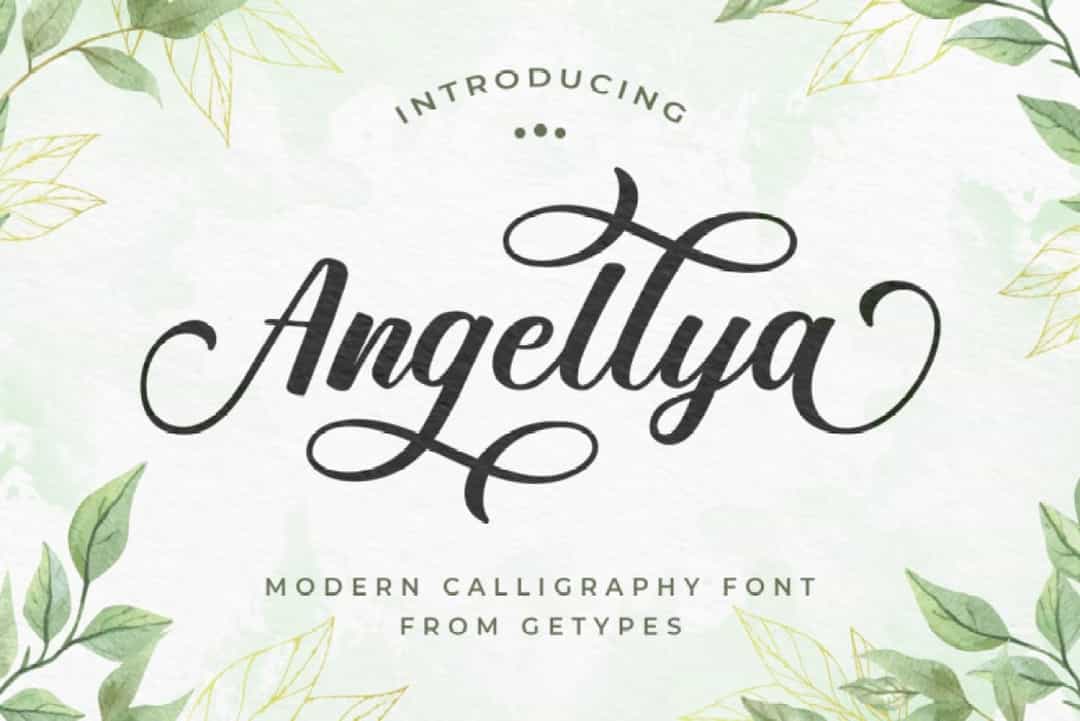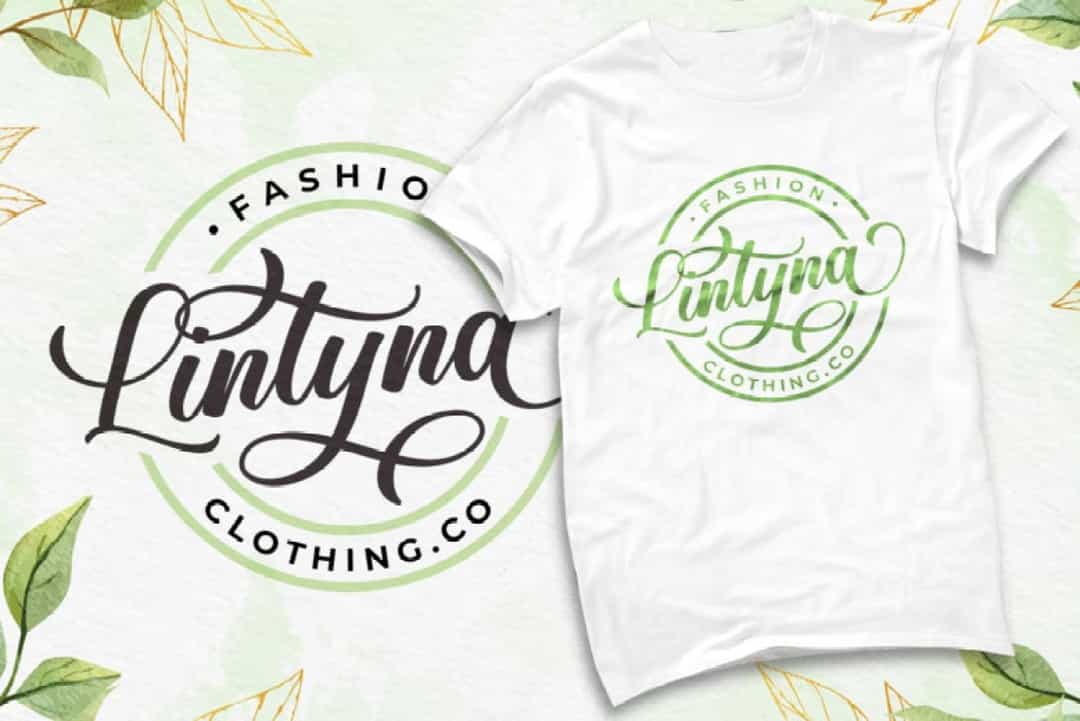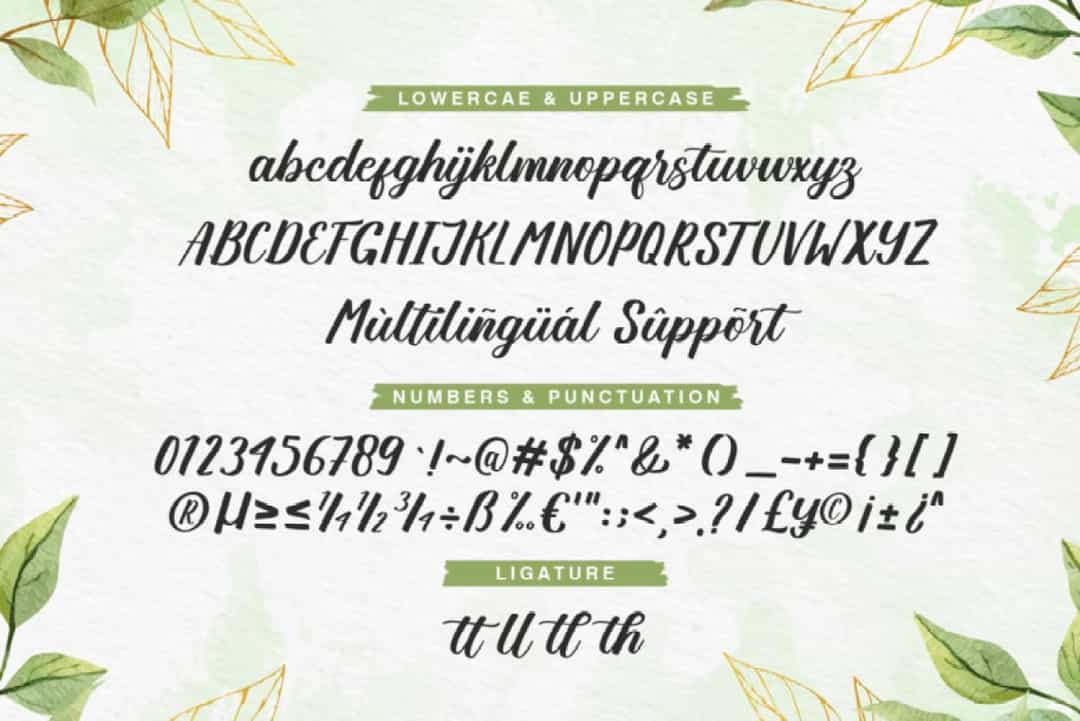
Angellya is a beautiful and graceful script style font and has an air of refinement. With the beautiful alternate ligatures and alternates that bring the professional touch to the font, this highly featured font is perfect for branding projects, handwritten quotes, product packaging headers and headers, merchandise posters, social media greetings, cards, and much more.